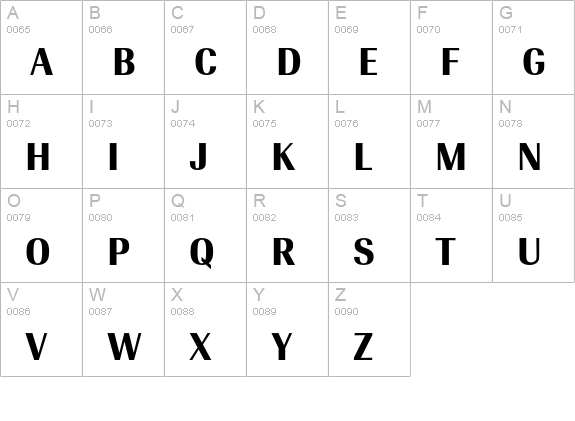
RadiantEFText-Bold Font Details
RadiantEFText-Bold is a strong, high-contrast variant in the RadiantEFText typeface family \xE2\x80\x94 well suited to headlines, attention-grabbing titles, and strong calls-to-action.
RadiantEFText-Bold is a captivating and striking font that is sure to make a bold statement. With its sleek and modern design, this font is perfect for adding a touch of sophistication to any project. The thick, bold lines of RadiantEFText-Bold exude confidence and strength, making it ideal for headlines, titles, and branding materials. This font offers a unique blend of elegance and power, making it versatile for a variety of design purposes. Whether you're creating a professional presentation, designing a logo, or crafting eye-catching posters, RadiantEFText-Bold will effortlessly elevate your work to the next level. One of the best features of RadiantEFText-Bold is that it is completely free to download. That's right, this exceptional font is freely available at FontsMarket.com, allowing you to access its beauty and versatility without breaking the bank. Now you can enhance your design projects with a high-quality font that won't cost you a penny. With its captivating aesthetics and its accessibility, RadiantEFText-Bold is a font that should not be missed. Download it today and experience the power of this remarkable typeface. Let RadiantEFText-Bold be the key element to make your designs stand out from the crowd, all while enjoying the freedom of its availability at FontsMarket.com.